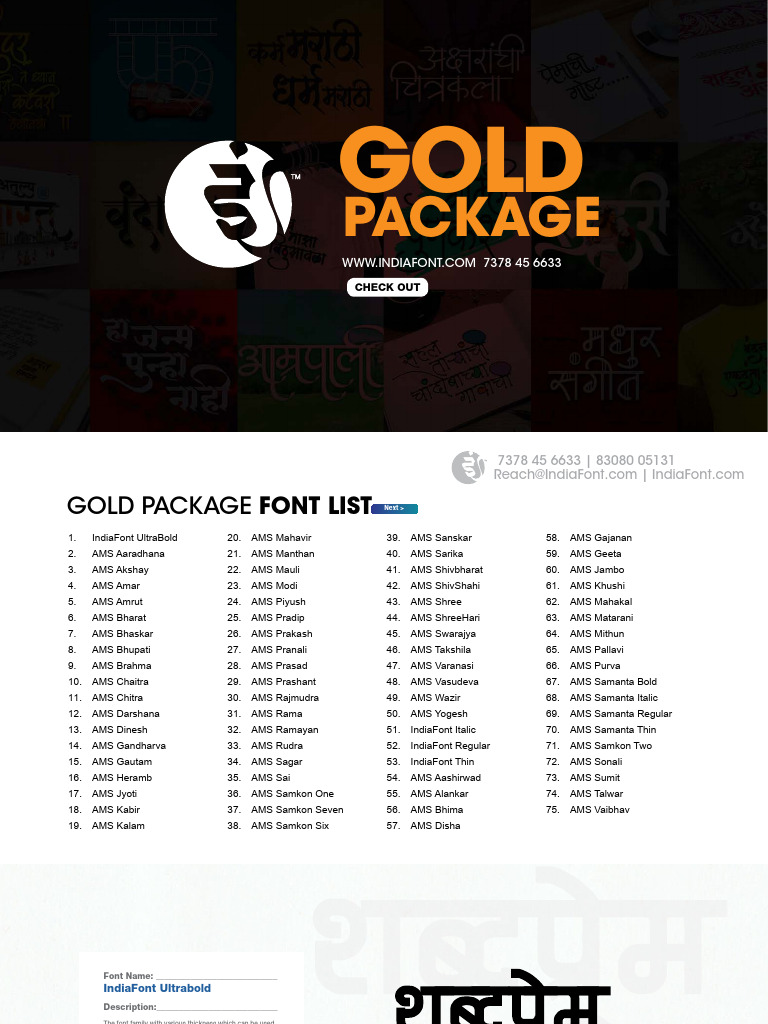
GOLD
PACKAGE
Font Name: ____________________________
IndiaFont Ultrabold
Description:____________________________
The font family with various thickness which can be used
in different type of ads / flex / books / or in any other
paragraph.
So no worries anymore of simple fonts, not only simple but
also creative which will change the look of your designs.
• Logo • Brochure • Business Card • Sign Board
• Greeting Cards • Invitation Card • News Advert
Font Name: ____________________________
AMS Aaradhna
Description:____________________________
Just type and change any Variable as needed to get
fantastic results. Another great typeface to get high end
typography experience.
Now only spend the time on design part, typography is
almost ready for you. This font can be used specially for
Heading.
• Logo • Brochure
• Greeting Cards • Invitation Card
Font Name: ____________________________
AMS Akshay
Description:____________________________
The font which can be used in different type of ads / flex /
books / or in any other paragraph.
So no worries anymore of simple fonts, not only simple but
also creative which will change the look of your designs.
• Logo • Brochure • Business Card • Sign Board
• Greeting Cards • Invitation Card • News Advert
Font Name: ____________________________
AMS Amar
Description:____________________________
This type face is specially designed for quality design
production. When you need something very special to
create for you end client, you can go with font like this
one.
Yes, it has very nice shape and formed to be used with
multiple choice.
• Logo • Brochure • Sign Board
• Greeting Cards • Invitation Card • News Advert
Font Name: ____________________________
AMS Amrut
Description:____________________________
To use at very unique designs to give it a very high end
look with typography. Font structure shows itself a lot
about it, now its on upto you how you molt it in your
designs.
• Logo • Brochure • News Advert
Font Name: ____________________________
AMS Bharat
Description:____________________________
No, wait... we did nothing in addition to it, its only by
typing. Yes!! Only by typing.
To use at very unique designs to give it a very high end
look with typography. Font structure shows itself a lot
about it, now its on upto you how you molt it in your
designs.
• Logo • Business Card • Sign Board
• Greeting Cards • Invitation Card
Font Name: ____________________________
AMS Bhaskar
Description:____________________________
We believe that every word says something special about
it, so we gave a lot of time and dedication to make each
This type face is specially designed for quality design
production. When you need something very special to
create for you end client, you can go with font like this
one.
Yes, it has very nice shape and formed to be used with
multiple choice.
• Logo • Greeting Cards • Invitation Card